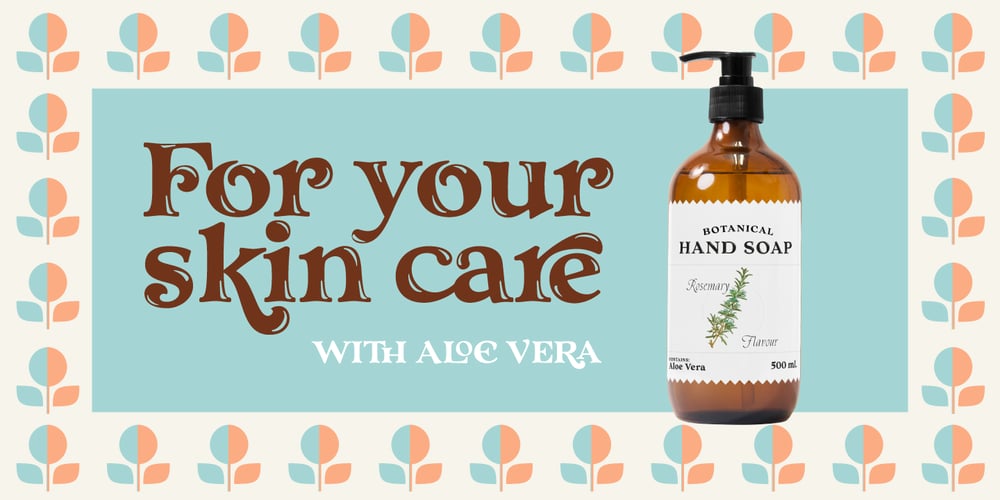
Nostalgia Font Family was designed by Giuseppe Salerno, Paco González and published by Resistenza. Nostalgia contains 3 styles and family package options. Introducing Nostalgia Font: a modern typeface with a delightful retro essence. Comprising three distinct styles – Regular, Effect, and Flowers – Nostalgia Font boasts softened edges and rounded terminations, effortlessly conjuring a fresh and contemporary aesthetic while evoking a nostalgic sentiment.By combining the main font with the “Nostalgia Effect,” you can instantly add a luminous touch, brightening your designs and enhancing their visual appeal. Furthermore, Nostalgia Flowers offers an extensive array of floral motifs and decorative elements, elevating the vintage ambiance of any project with its endless possibilities.One of the standout features of Nostalgia Font is its comprehensive set of alternates and swashes. Carefully crafted to facilitate the creation of stylish lettering compositions, these additions provide designers with a wealth of creative options. With easy access to OpenType features, you can unlock the full potential of Nostalgia..From bold magazine layouts to elegant wedding invitations, from distinctive branding to captivating poster designs, this font is perfectly suited to a diverse range of projects.Experience the timeless allure of Nostalgia Font and elevate your designs with its distinctive blend of modernity and nostalgia. More About Opentype Features: https://bit.ly/opentype-rsz